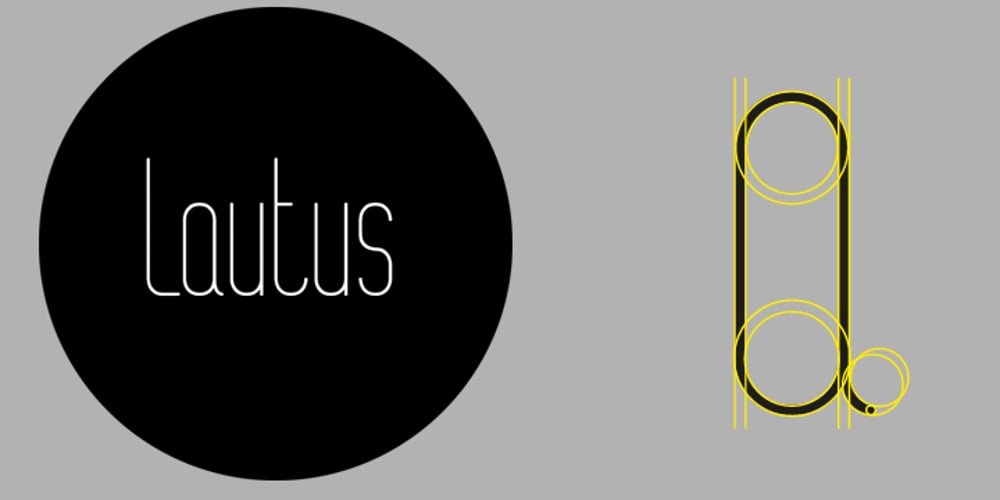
ALT Lautus Font Family was designed by Andreas Leonidou and published by ALT. ALT Lautus contains 10 styles and family package options. Lautus is a 10 weight typeface and can be use in almost every graphic design application. It’s great for minimal design, logos, posters, and magazines Check out the whole presentation here http://www.behance.net/gallery/Alt-Lautus-Typeface/788079